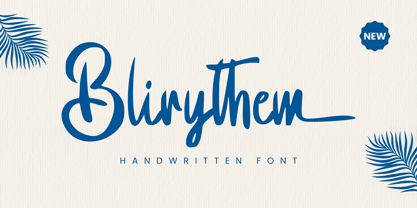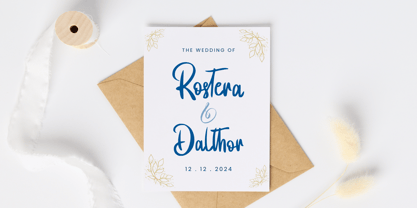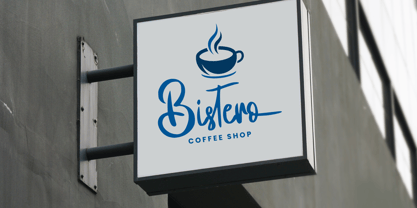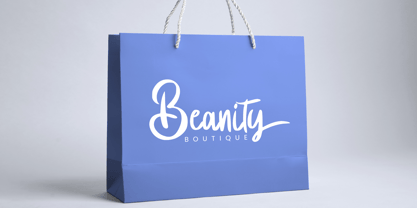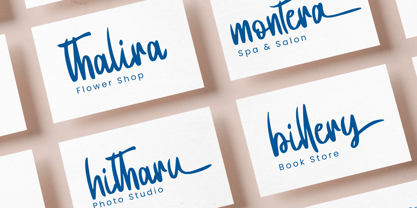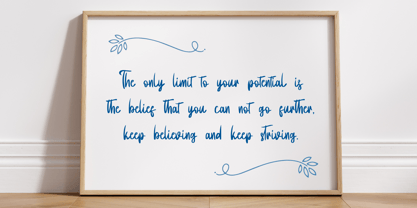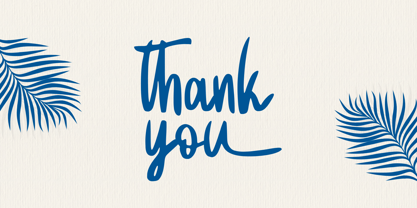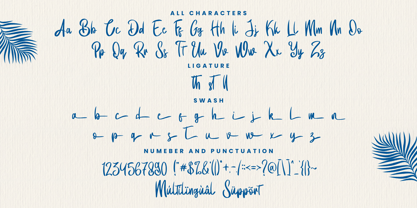
Blirythem
A família de fontes Blirythem foi desenhada por Alif Ryan Zulfikar e publicada pela Sakha Design. Blirythem contém 2 estilos e opções de pacote familiar.
Blirythem is a handwritten font with smooth, flowing strokes and modern charm. Perfect for logos, social media, and invitations, its stylish design enhances projects with a blend of elegance and a creative, free-spirited vibe.